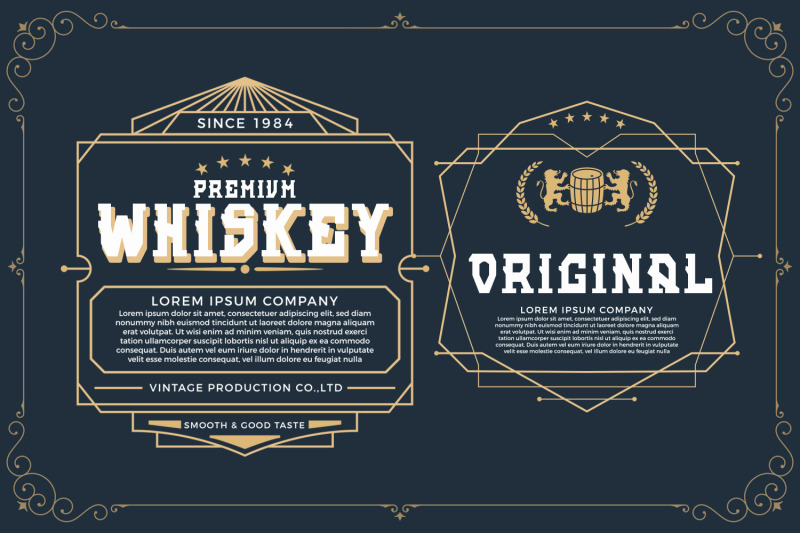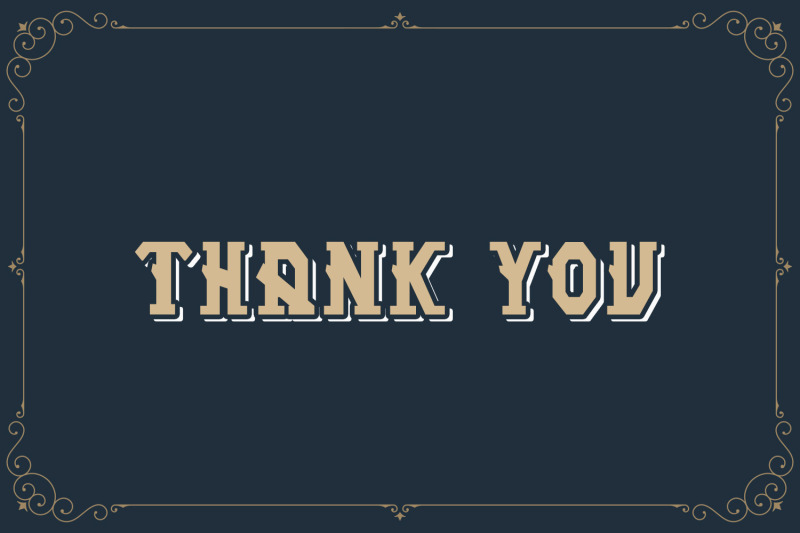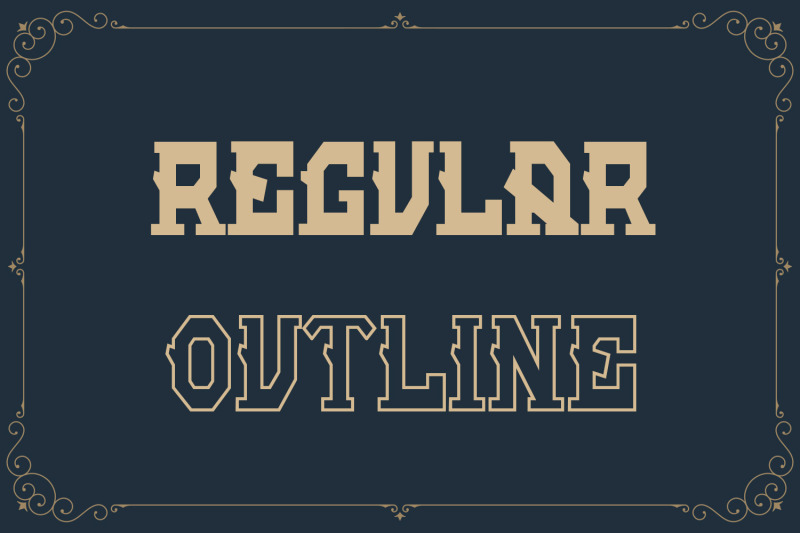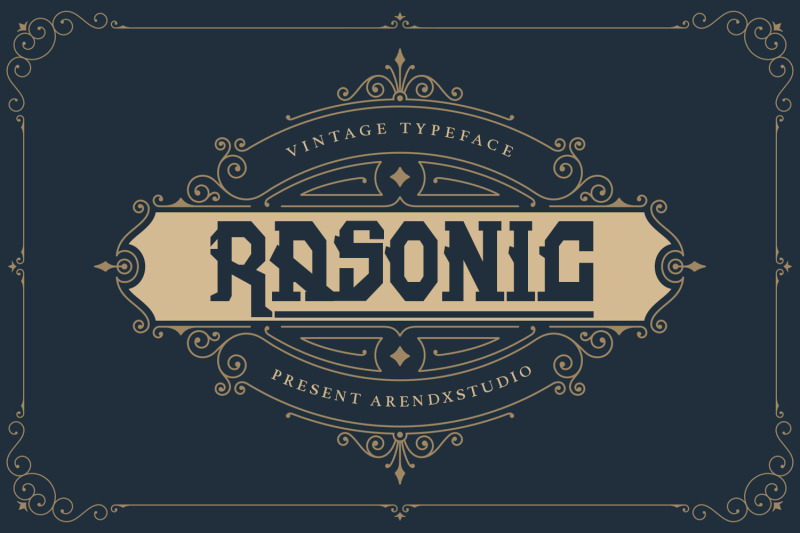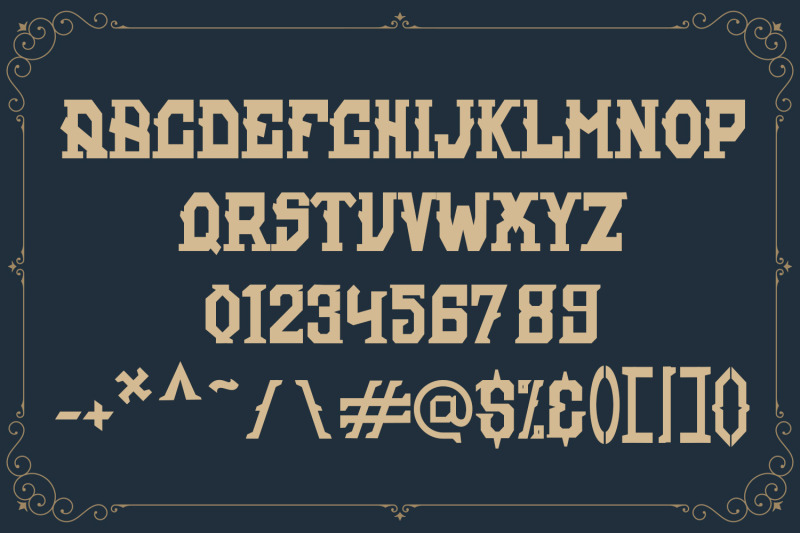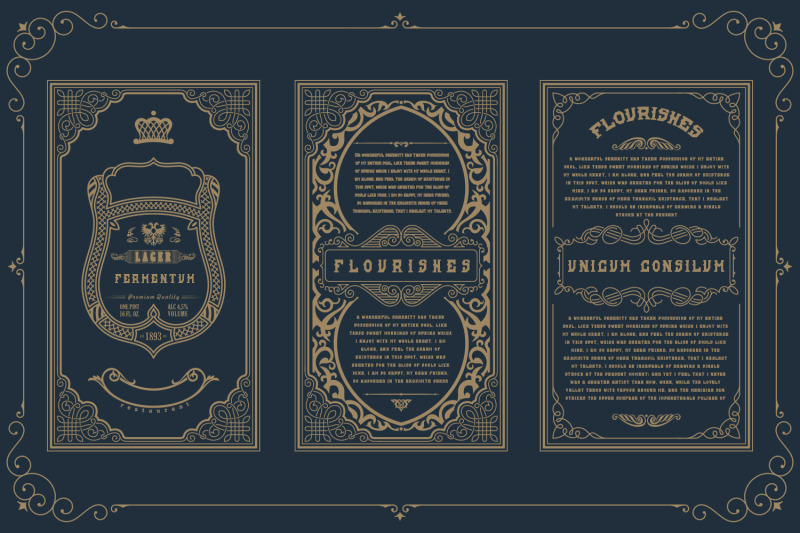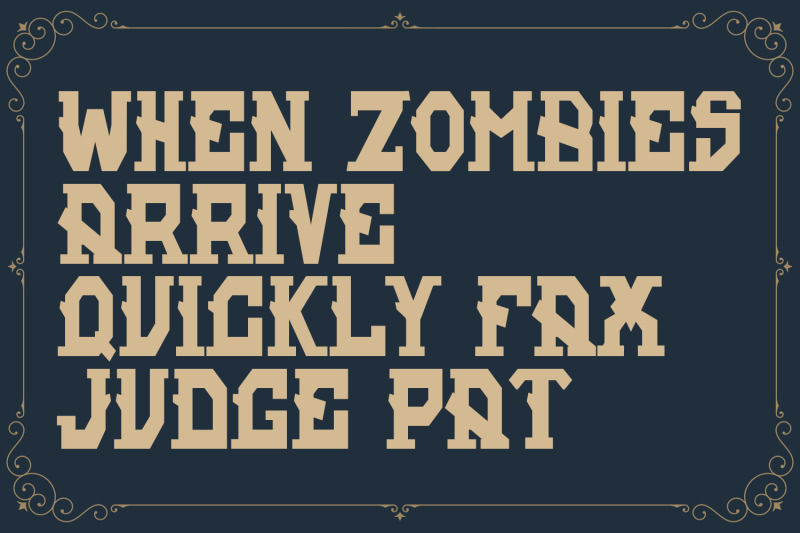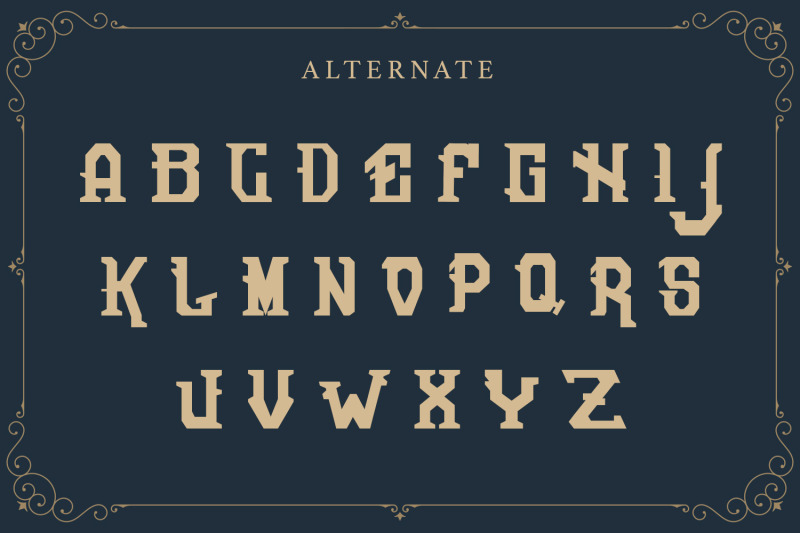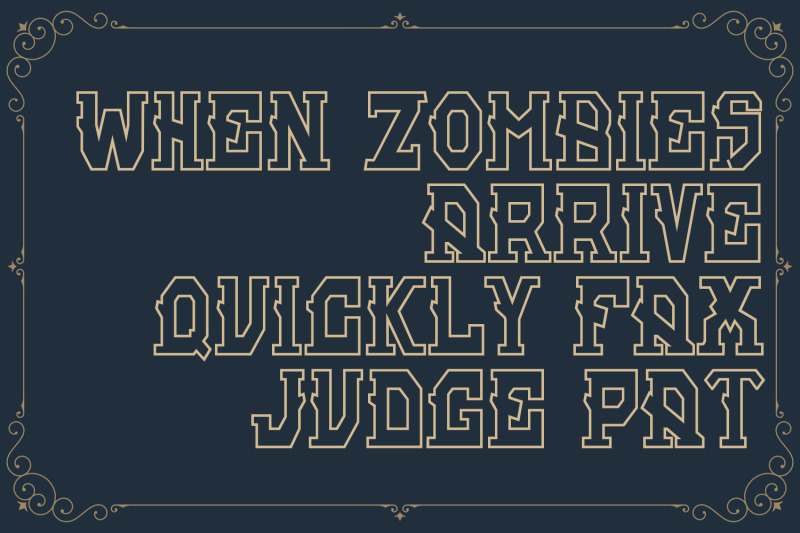
Rasonic - Vintage Typeface
Introduce You Rasonic Rasonic is a type of Vintage Font that is very different in character and very suitable for the display needs of each of your designs, has two variations, namely regular and outline, I'm sure you will like it Rasonic came with opentype features such stylistic alternates, stylistic sets & ligatures good for logotype, poster, badge, book cover, tshirt design, packaging and any more. Features : -Uppercase & Lowercase -Multilingual support -Number, -Symbol -Punctuation. -Support in Mac and Windows OS -Support in design application (photoshop, illustrator, and more) There it is! I really hope you enjoy it - comments & likes are always welcome and accepted. More importantly, don't hesitate to send a message if you have a problem or question.